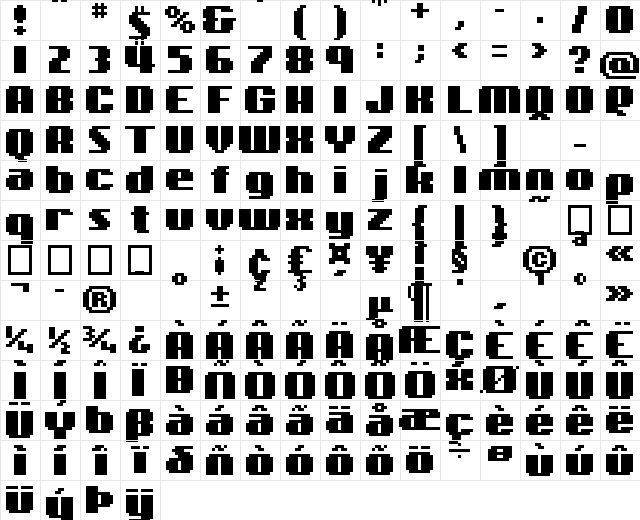
01Energetix Bold
Design Context for 01Energetix Typeface
01Energetix is a composed and adaptable typeface that performs quietly and consistently across a wide range of design contexts. Its bold stroke weight gives it real presence on the page.